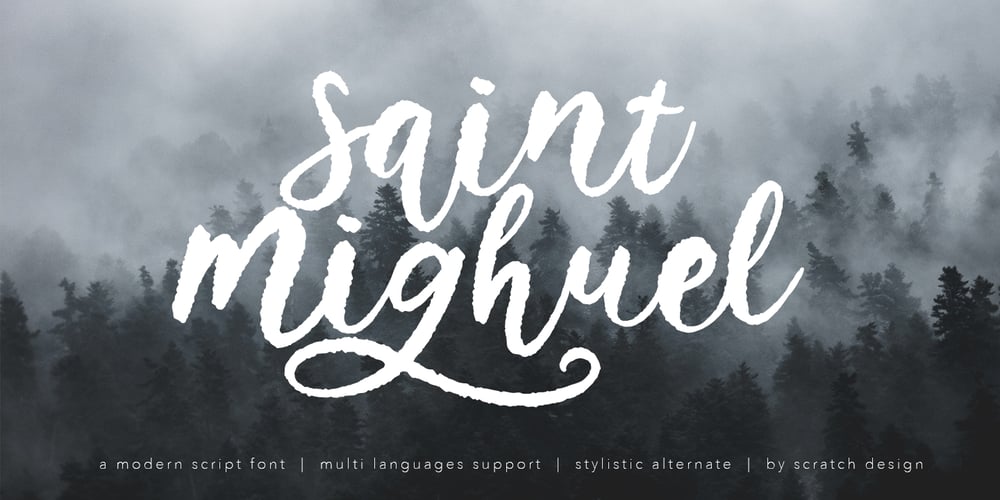
Saint Mighuel Font Family was designed by Gitayogi Irhandi and published by Scratch Design. Saint Mighuel contains 1 styles and family package options. Introducing Saint Mighuel modern script font, using handdrawn technique by using a dry brush effect to get a rich texture. This font is very beautiful for wedding invitation design, logotype, quote, name card, header, fashion design, YouTube video thumbnails, social media, video tittle, etc. This font uses modern style in calligraphy to make it look dynamic in every trend of design. This style is very popular and authentic for so many design occasion. You can use this font to make any creative art lettering with your own characters, make a beautiful project, promote your brands or projects. Please enjoy this font and make a beautiful design..have fun!Product Content :• Character Set A-Z• Numerals & Punctuations • Multilingual characters• Ligature • Stylistic Alternates